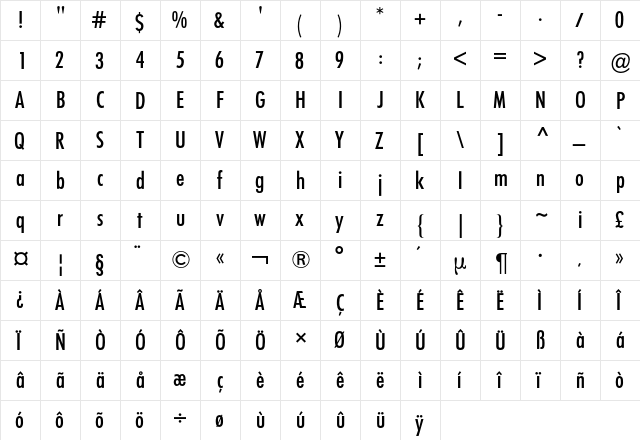
Futura Condensed BQ Regular
Design Context for Futura Condensed BQ Typeface
Futura Condensed BQ has a distinctly futuristic character, with geometric precision and clean angles that feel at home in technology, gaming, and sci-fi contexts. The condensed width makes it efficient for tight spaces without sacrificing legibility.